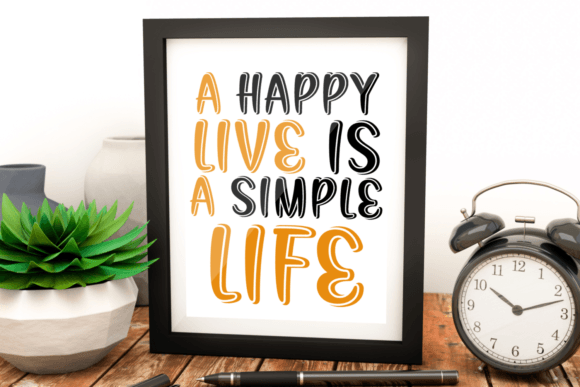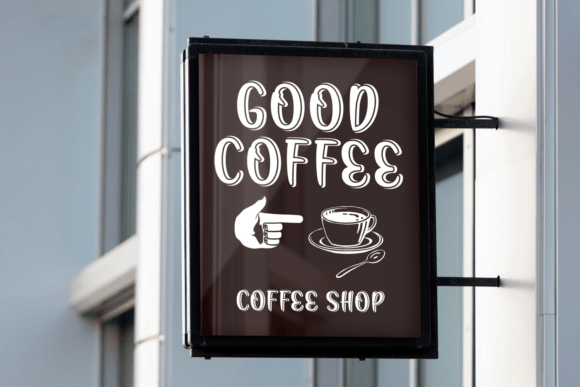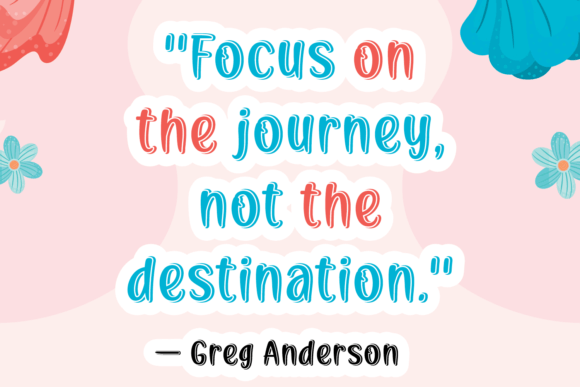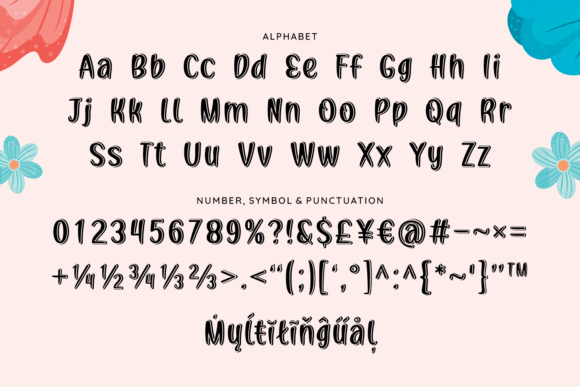
Introduction to Always Be Happy Font
Always Be Happy is a cheerful and friendly display font.
The extra set of lines gives this font its 3D look, making it perfect for eye-catching typography It looks great on posters, framed quotes, product packaging, and many more.
Key Features of Always Be Happy Font